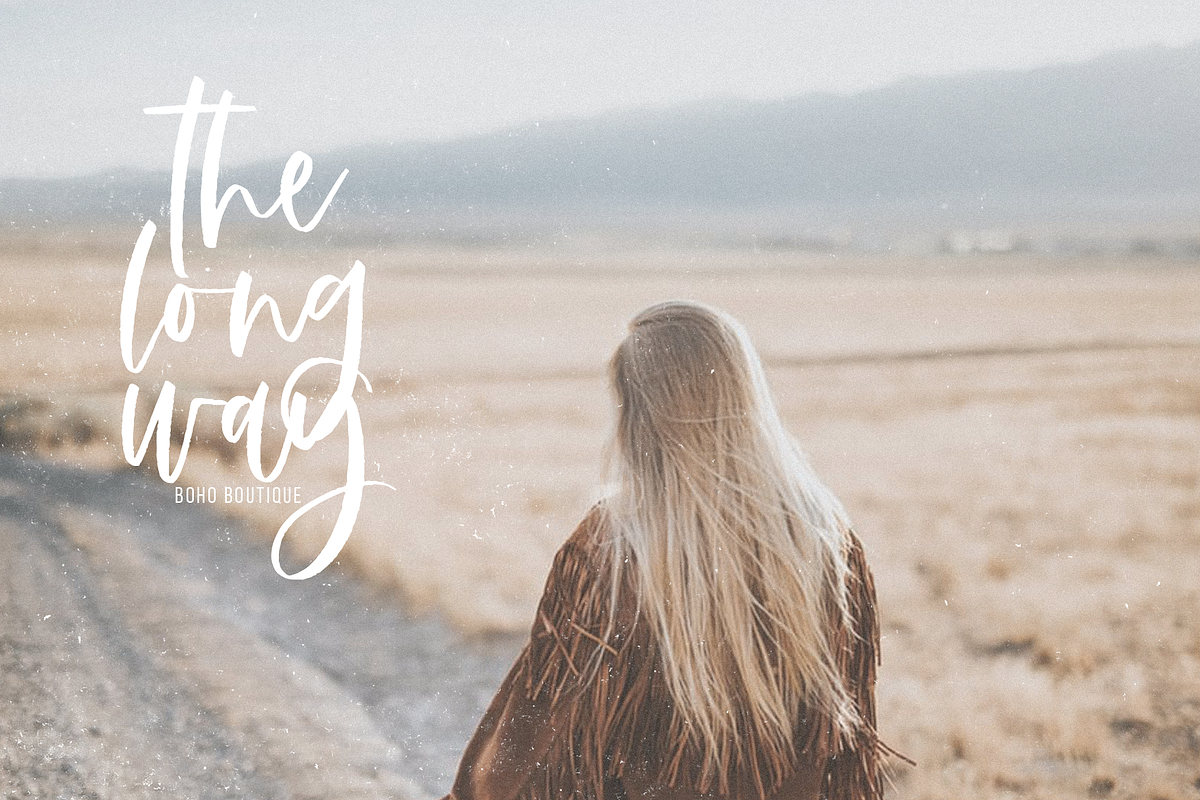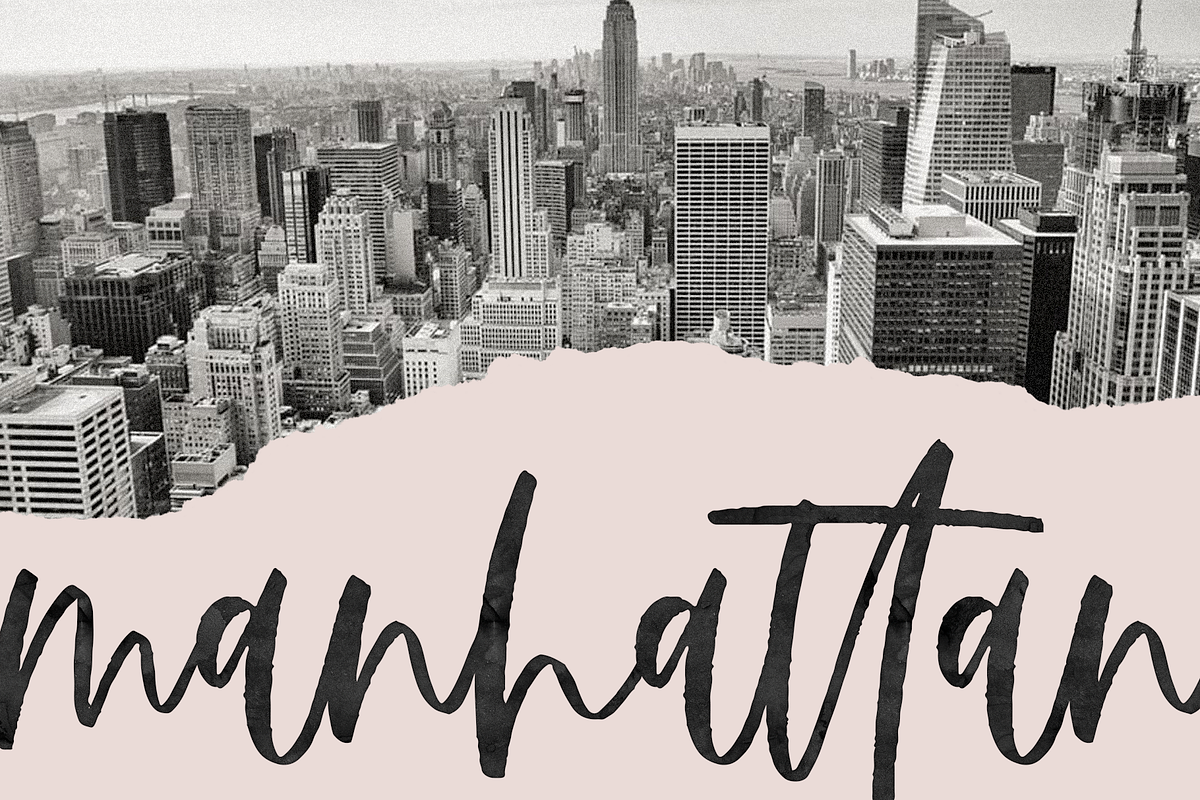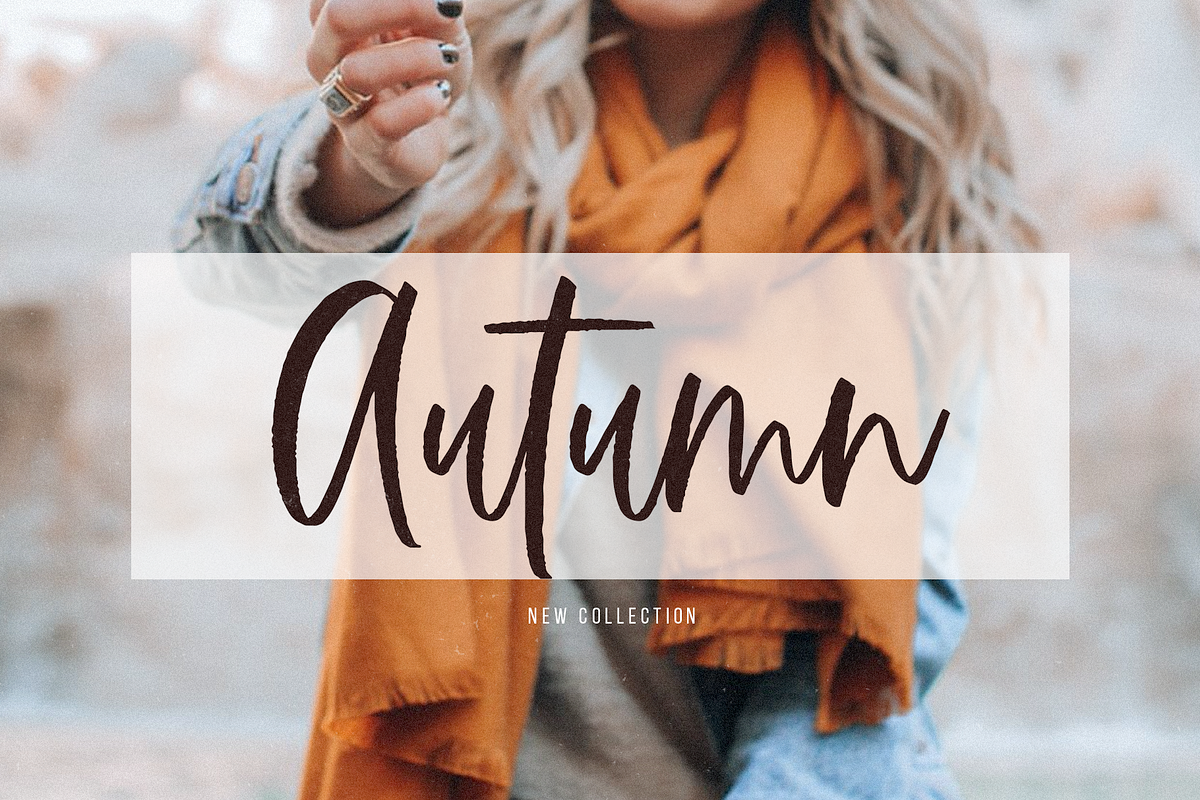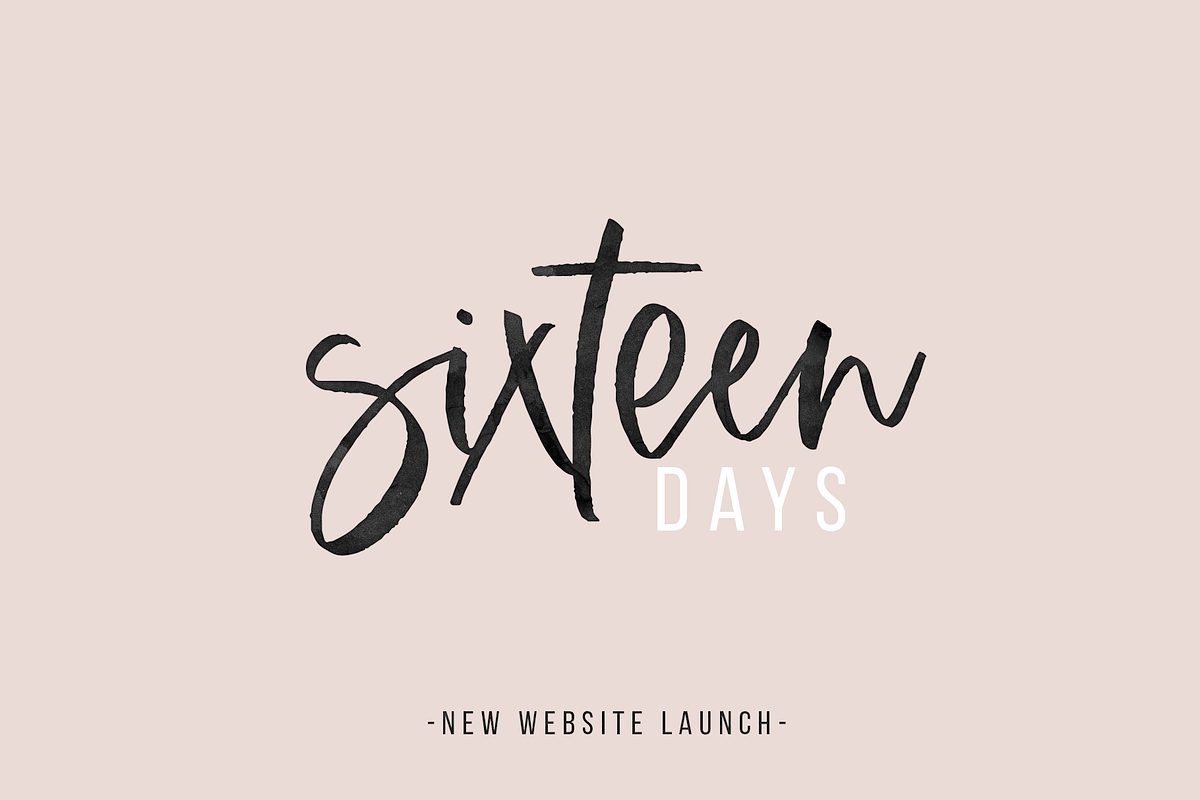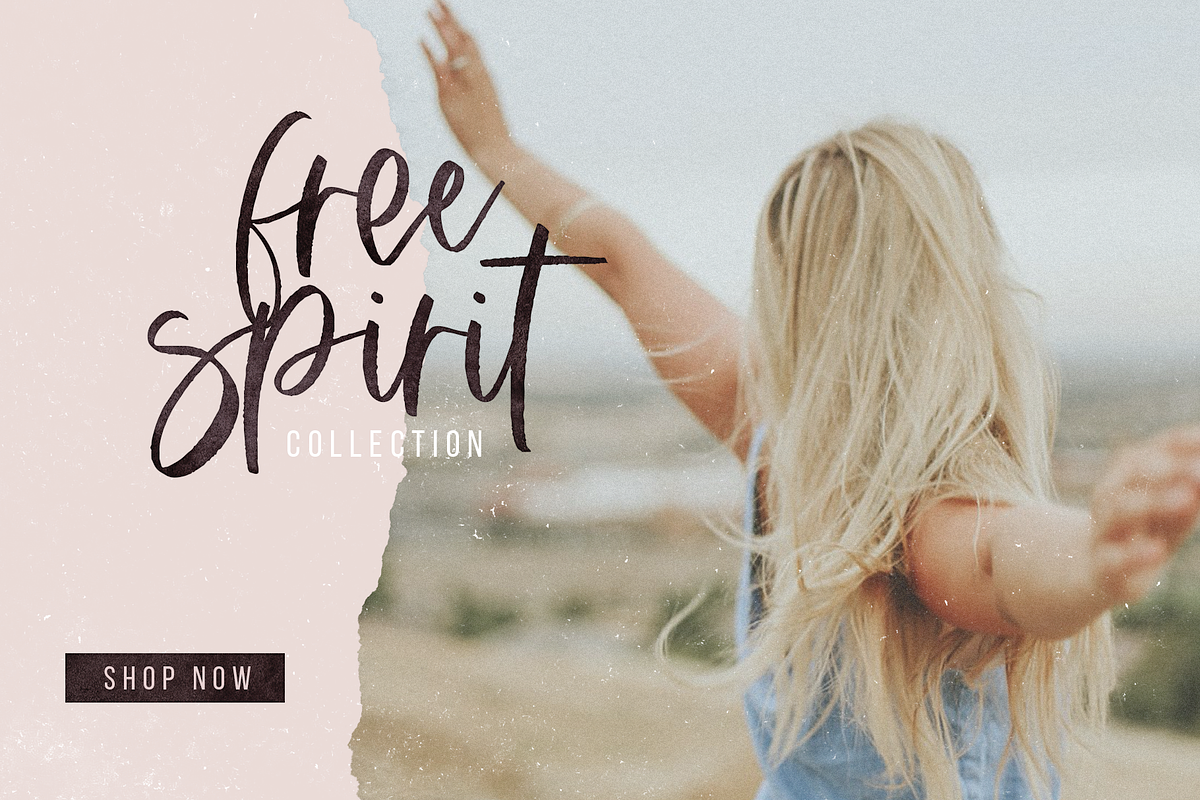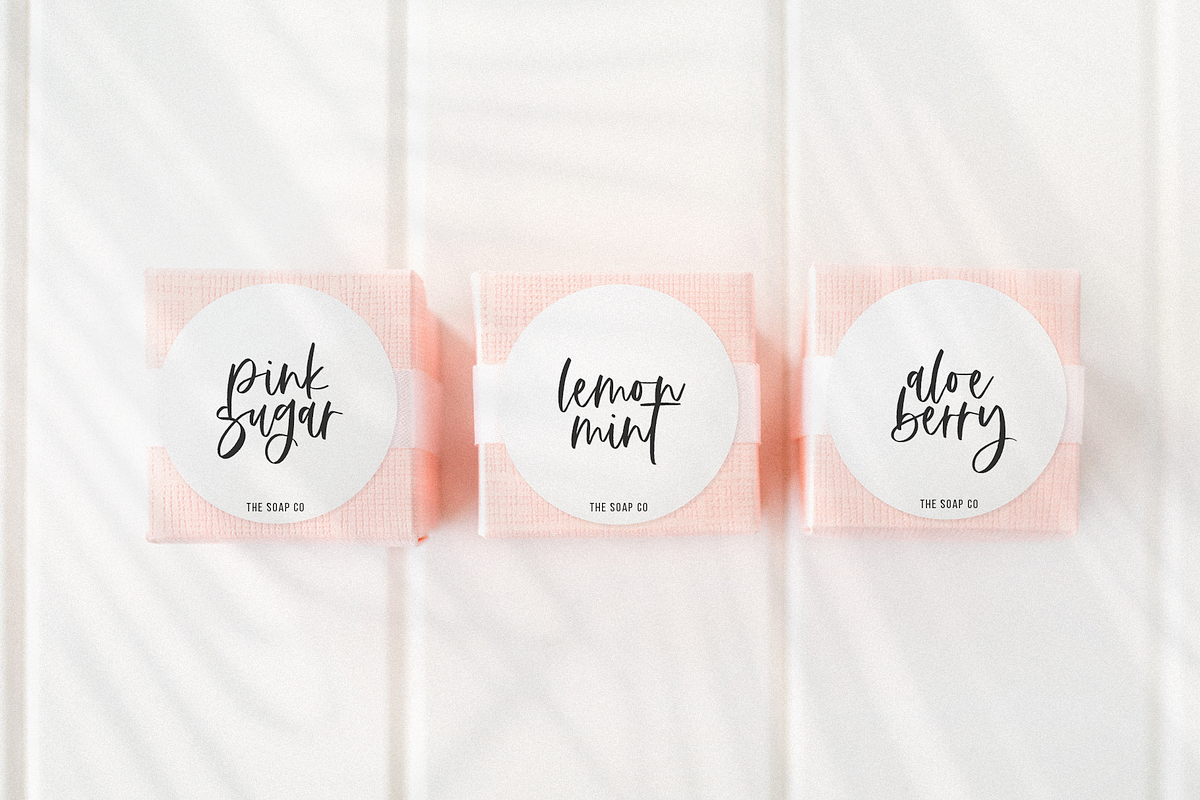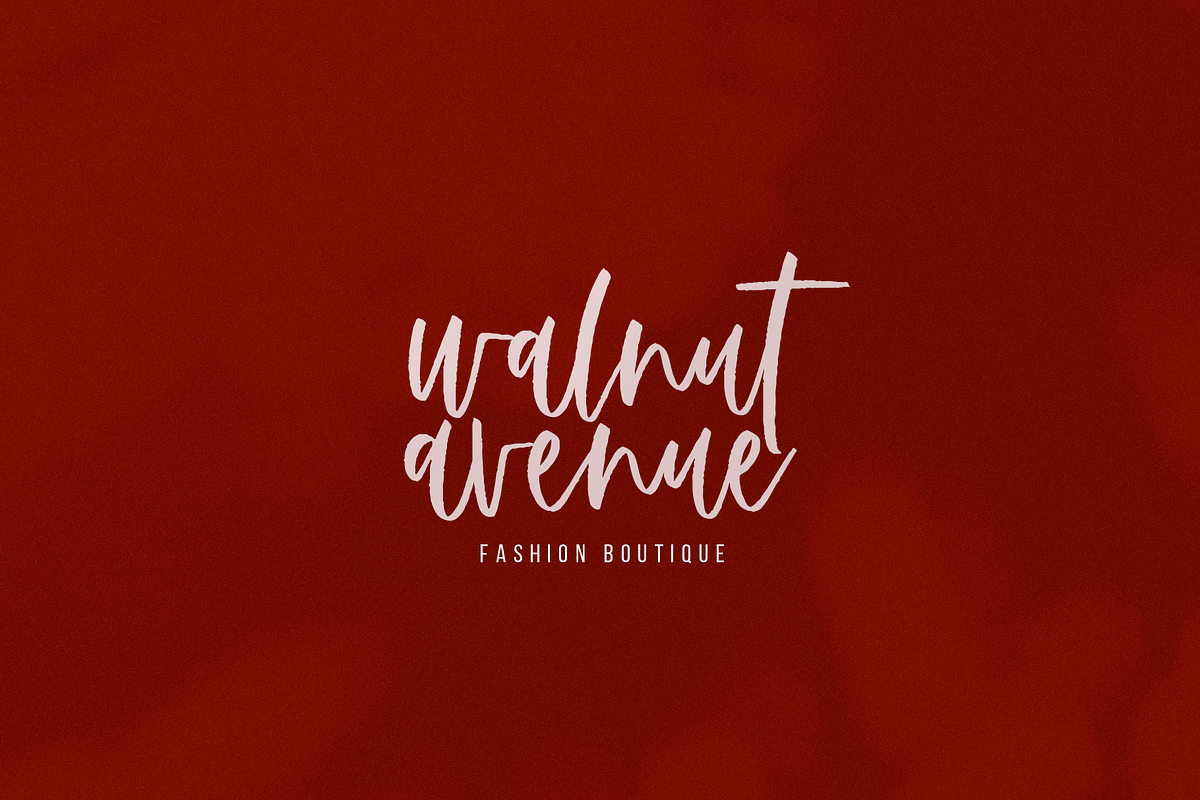
Silverway | Handwritten Brush Font
Silverway is a modern, handwritten script font. This font has a fun brush texture.
This font is perfect for modern projects, headings, blogs, logos, branding, business cards, websites, invitations, shirts, mugs, and more!